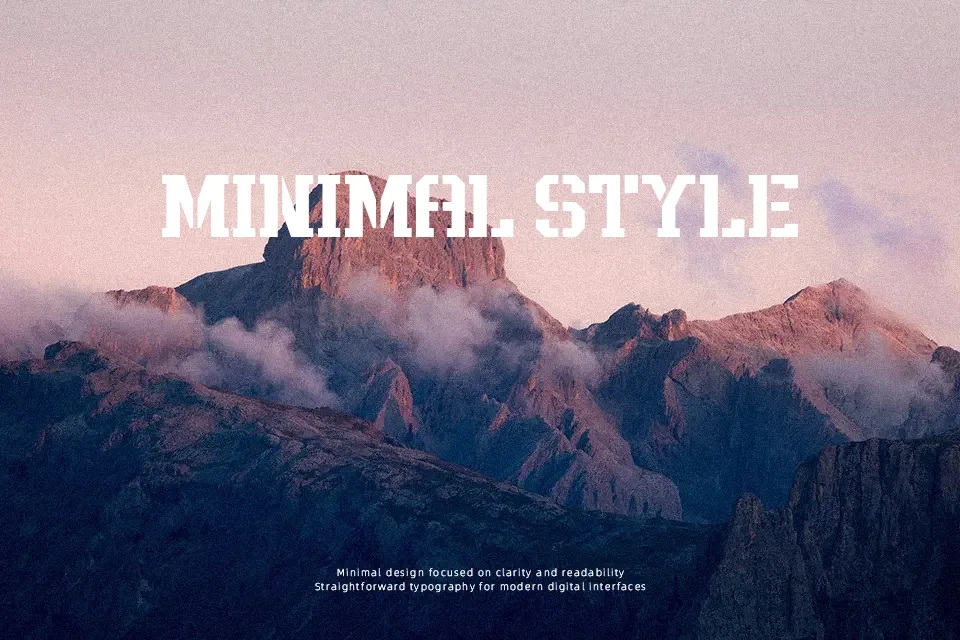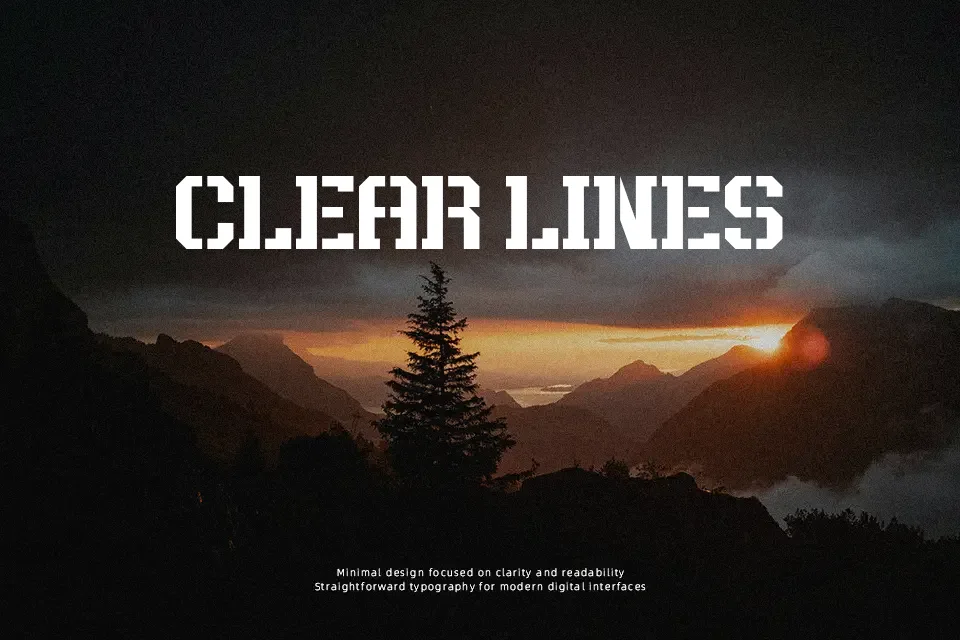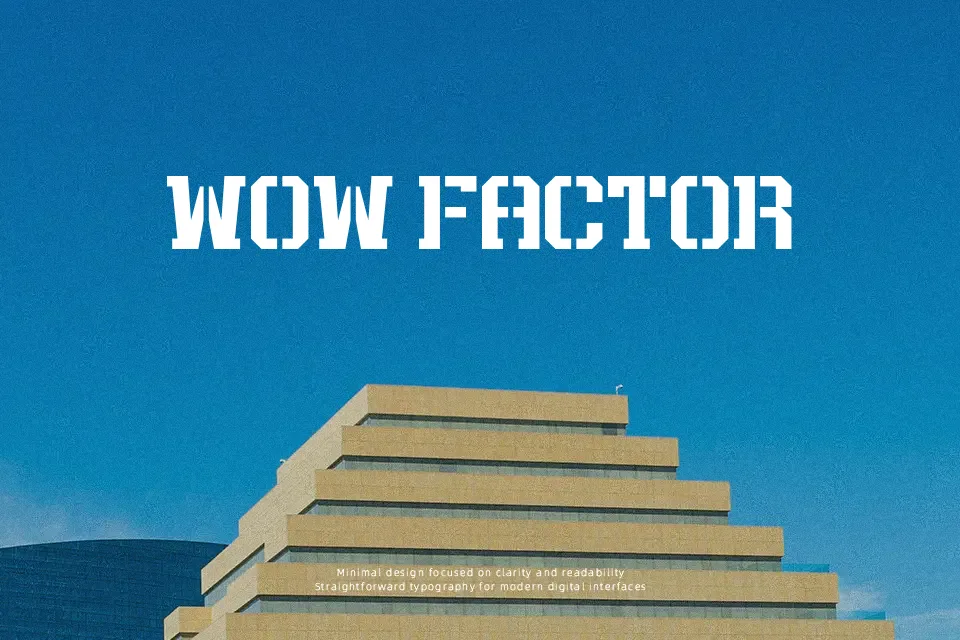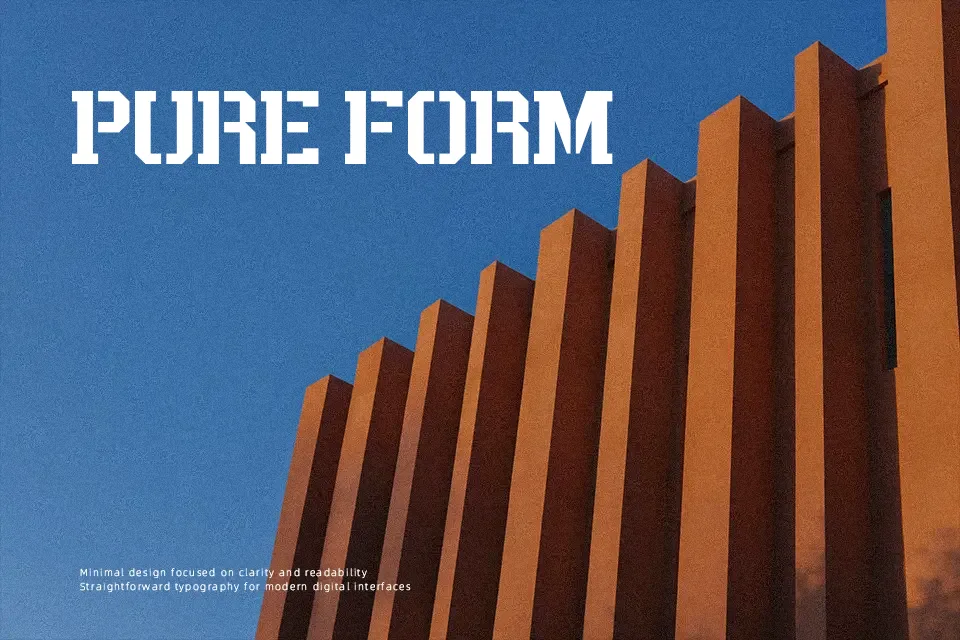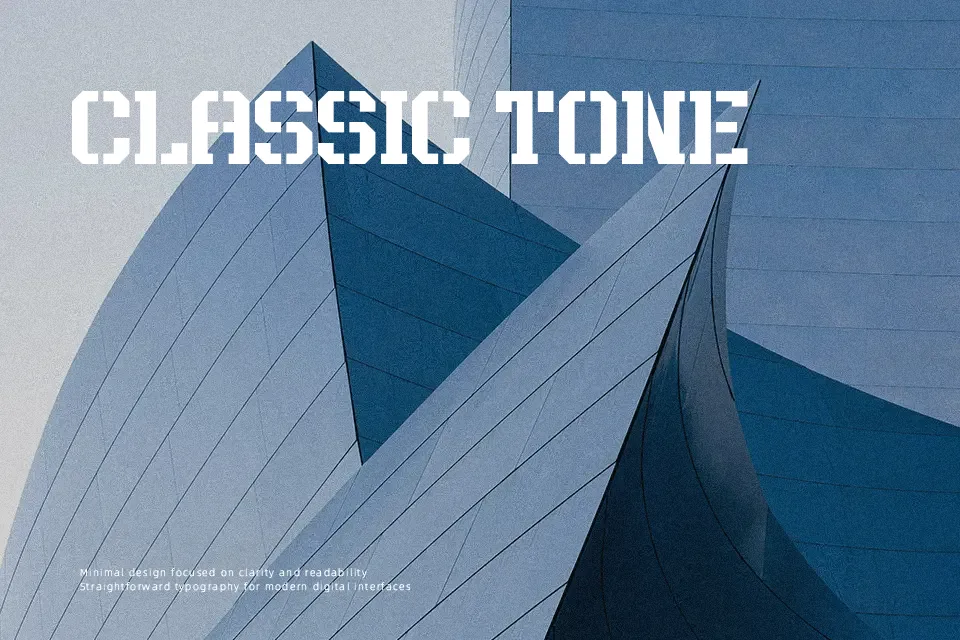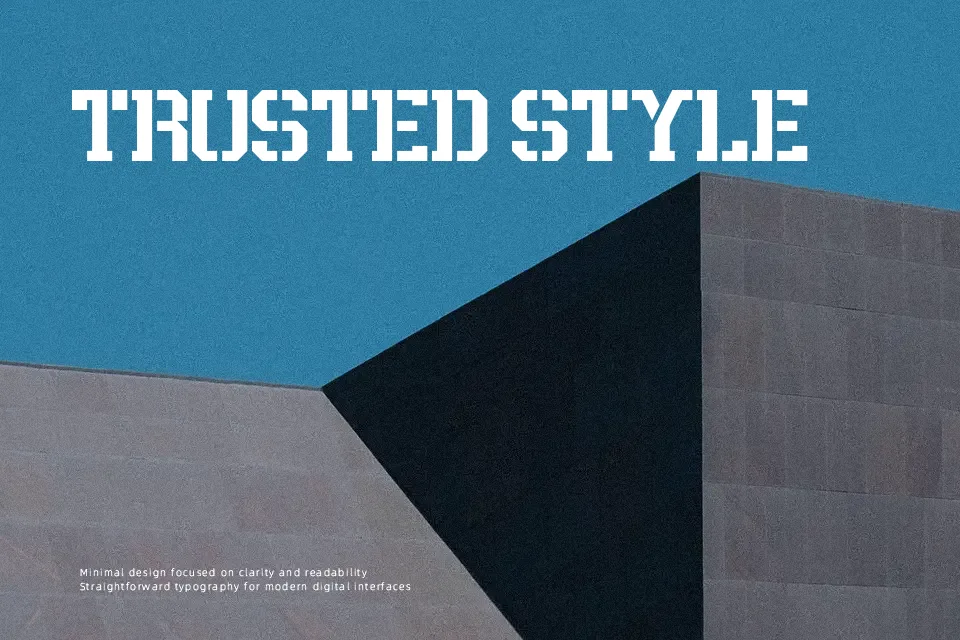
Rush Rush Font
Rush Rush Font commands attention through its heavy, military-inspired stencil construction. The letterforms feature thick, aggressive strokes separated by consistent stencil bridges, giving the design an industrial and rugged aesthetic. Its rigid proportions and tight spacing create a highly compact visual rhythm that maximizes impact in large display scenarios. The heavy stroke weight ensures that the typeface remains commanding on action-oriented gaming covers or robust packaging layouts. However, the disconnected structures inherently reduce continuous reading comfort. This typeface performs best when displayed at larger sizes, as the stencil cuts can blur or lose clarity if scaled down for small interface labels or dense paragraph text.
action movie posters, industrial product packaging, military-themed video game titles, rugged apparel branding
continuous body text, small interface labels, corporate financial reports, dense editorial layouts
Perfect for branding, gaming, and headline, with a bold and display style.